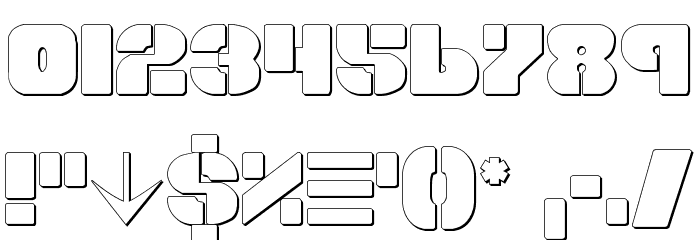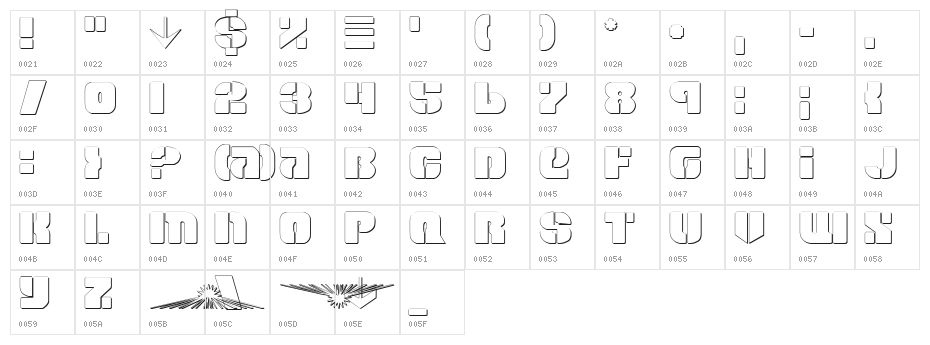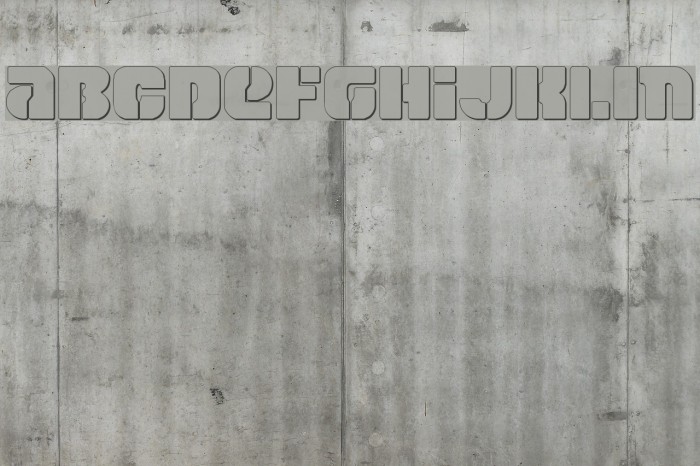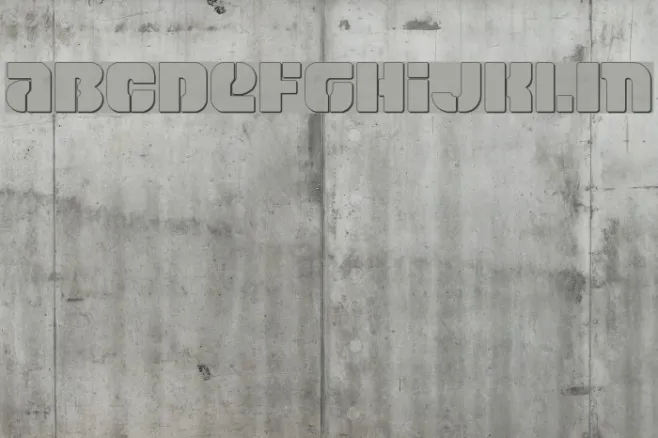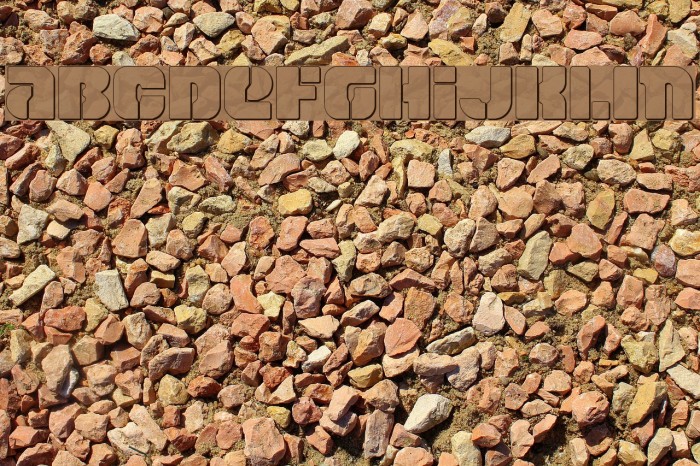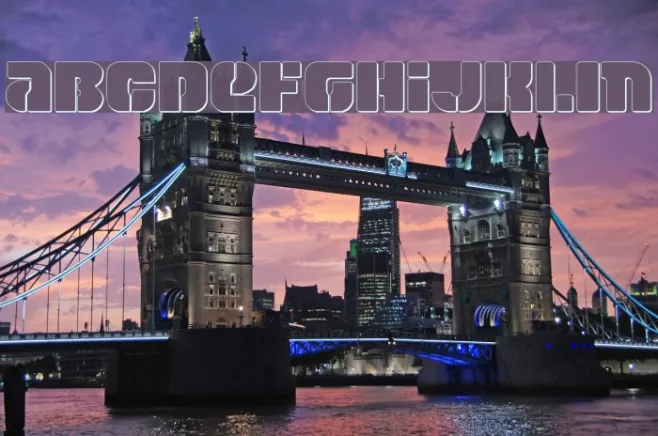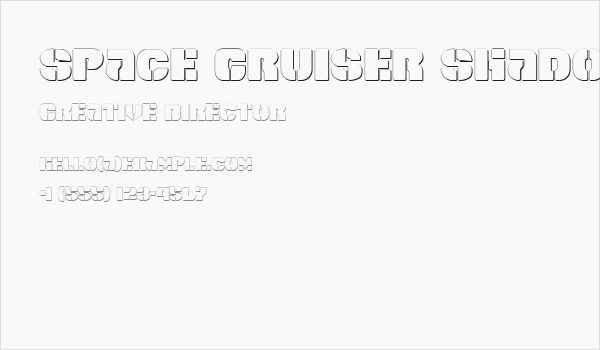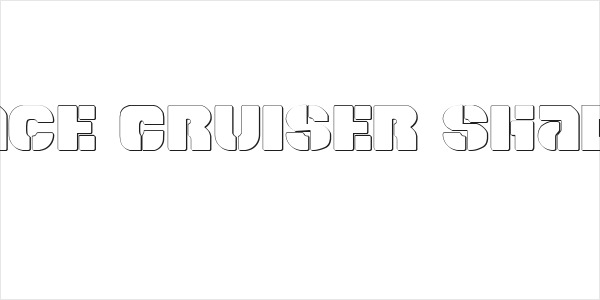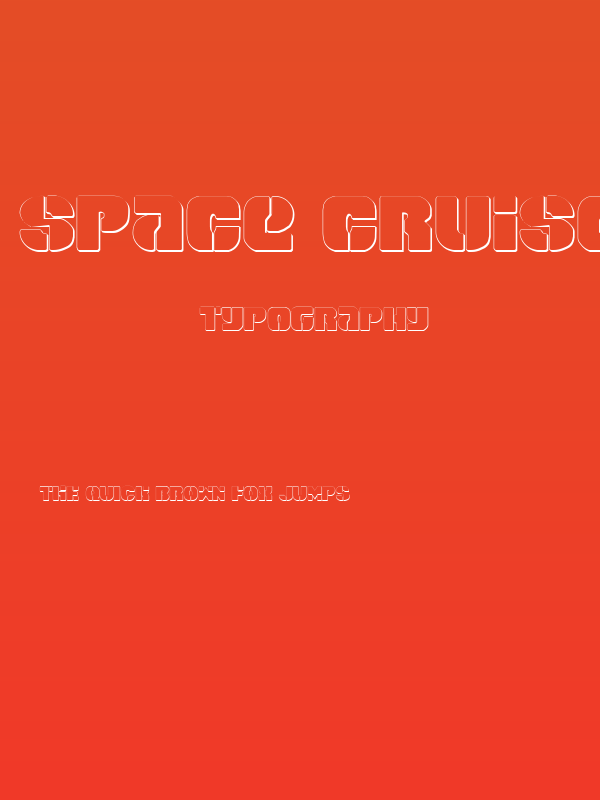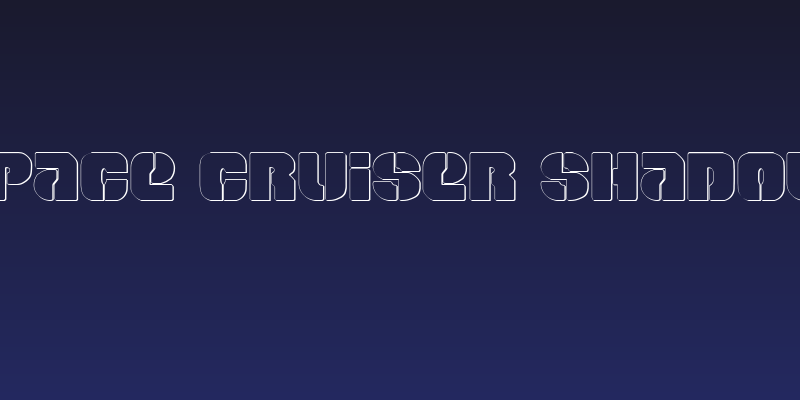
Space Cruiser Shadow Font
Space Cruiser Shadow Description
This font features a futuristic and bold design, characterized by its thick, blocky letters with a distinct shadow effect that gives a three-dimensional appearance. The geometric shapes and sharp angles create a sense of movement and modernity, making it stand out. The uppercase and lowercase letters maintain a consistent style, with a uniform thickness and clean lines. The numbers and special characters follow the same design principles, ensuring a cohesive look across all elements. This font is ideal for projects that require a strong visual impact and a contemporary feel.
| Proposed Projects | Ideal for sci-fi themed posters, video game titles, technology branding, and futuristic event flyers. |